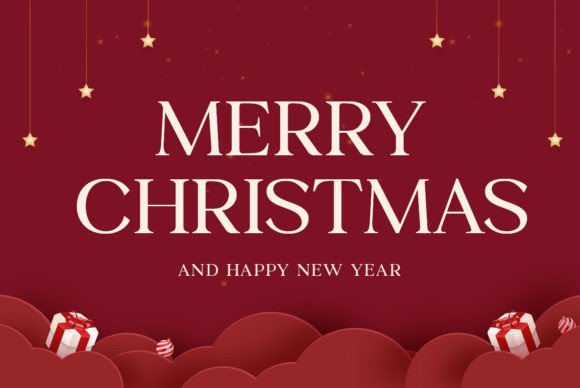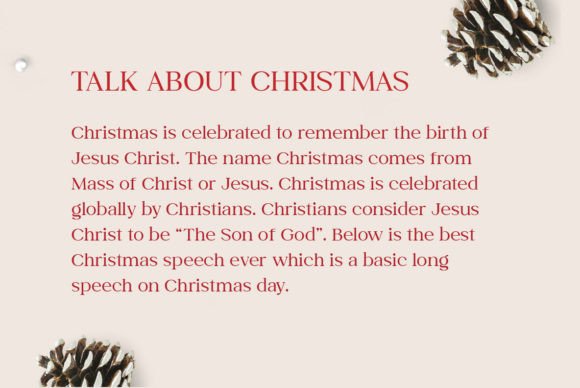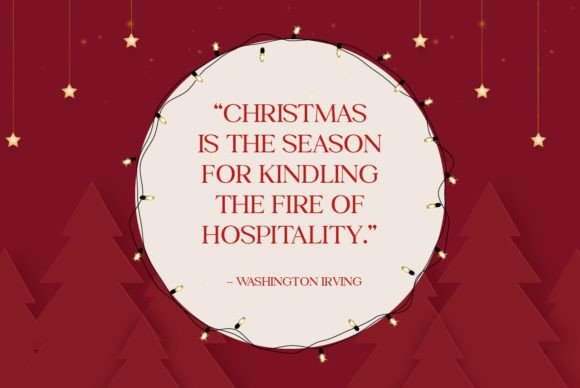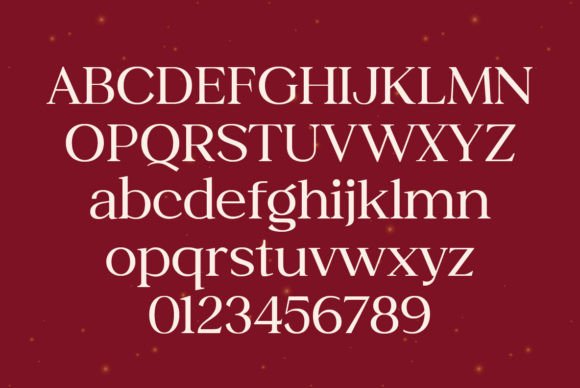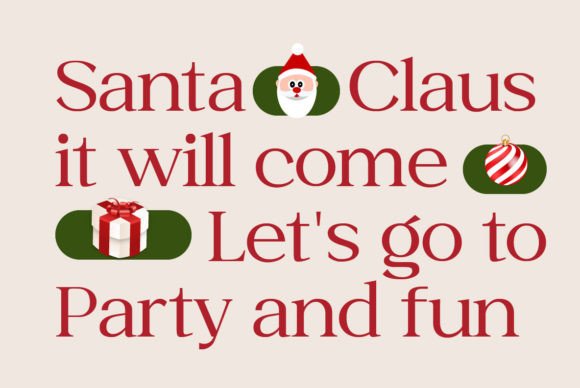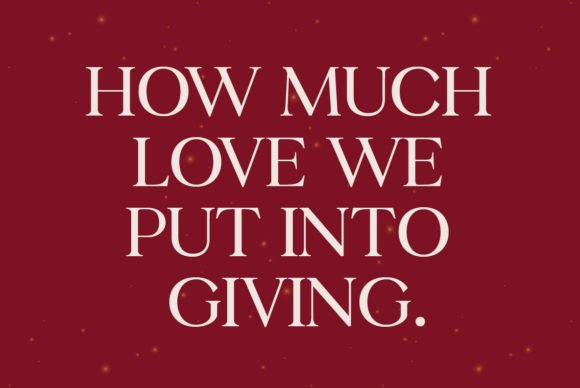
Get Ready to Sparkle this Holiday Season
As the snowflakes start to fall and the twinkling lights come out, there’s no denying the magic of the holiday season. It’s the perfect time to get creative and make some special memories with loved ones. For designers, this means getting out their favorite tools and bringing their holiday vision to life – and that’s where the Bright Holiday Font comes in.
This elegant and artistic typeface is designed specifically to help you create beautiful Christmas designs that will make your friends and family go ‘wow’. From invitations and greeting cards to posters and flyers, the Bright Holiday Font is the perfect choice for adding a touch of festive flair to any project. Whether you’re a seasoned designer or just looking for a new way to express your holiday spirit, this versatile font is a valuable addition to your toolkit.
Bright Holiday Font Key Features
- Character Set: This font includes a wide range of characters, including uppercase and lowercase letters, numbers, punctuation marks, and special symbols, making it suitable for various design applications.
- Unique Characteristics: The Bright Holiday Font features a festive and playful design, with bold lines and intricate details that evoke the spirit of the holiday season. Its unique characteristics make it an ideal choice for designs related to Christmas, New Year’s Eve, and other winter celebrations.
- Style Variations: The font includes multiple style variations, including Regular, Bold, Italic, and Bold Italic, allowing designers to experiment with different looks and feels to suit their design needs.
Bright Holiday Font Review
Overall, I think Bright Holiday Font is a great addition to any designer’s toolkit, but it’s not without its quirks. Here’s my honest take:
- Unique, festive flair: The font’s bright, bold design is perfect for holiday-themed projects or any time you want to add some extra cheer to your design.
- Highly customizable: With its extensive character set and adjustable spacing, you can tweak the font to fit your specific design needs.
- Perfect for titles and headings: The font’s large x-height and dramatic flair make it a great choice for grabbing attention and drawing the eye to important text.
- Not ideal for body text: The font’s bold design can be overwhelming for large blocks of text, making it more suited for titles and headings.
- Limited language support: The font may not support all languages or character sets, which could be a problem for designers working on international projects.
Overall, I think Bright Holiday Font is a fun, versatile font that can add some much-needed personality to your designs. While it may have some limitations, it’s definitely worth adding to your collection for the right projects.
Bright Holiday Font Practical Application Guide
Getting the Most Out of Bright Holiday Font
To get the most out of Bright Holiday Font, use it in combination with other festive design elements such as holly, snowflakes, and holiday colors. You can also experiment with different font sizes, colors, and styles to create a unique and eye-catching design.
Bright Holiday Font is commonly used for:
- Holiday greeting cards and invitations
- Christmas and New Year’s Eve decorations